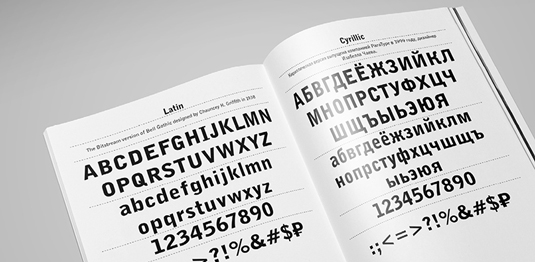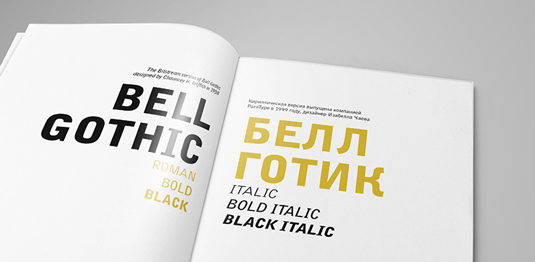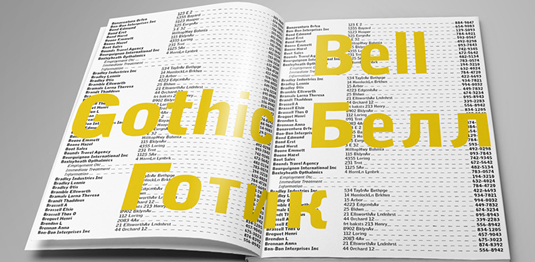
Font of the day: Bell Gothic
Bell Gothic from Paratype
Today's typeface of choice is the bitstream version of Bell Gothic designed by Chauncey H. Griffith in 1938 for use in the telephone directories of the Bell Telephone Company. The cyrillic version by Isabella Chaeva was released by ParaType in 1999, with italic styles added in 2009 by the same designer.
Clear and easy to read, Bell Gothic is a popular choice for magazine advertising and display purposes. Bell Gothic is available to purchase over on HypeForType.